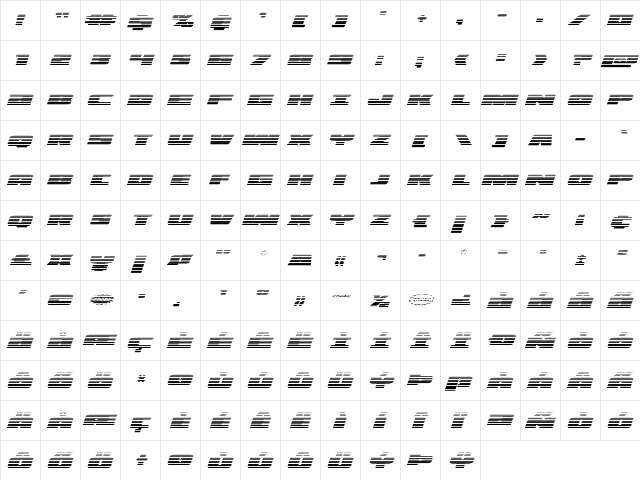
Illumino Gradient Italic Italic
Design Context for Illumino Gradient Italic Typeface
Illumino Gradient Italic is a composed and adaptable typeface that performs quietly and consistently across a wide range of design contexts. The dynamic lean of this cut emphasises speed and emphasis in any layout.
Pro Tip: Use Illumino Gradient Italic for emphasis, pull quotes, and subheadings where its slanted energy can add rhythm to the layout.